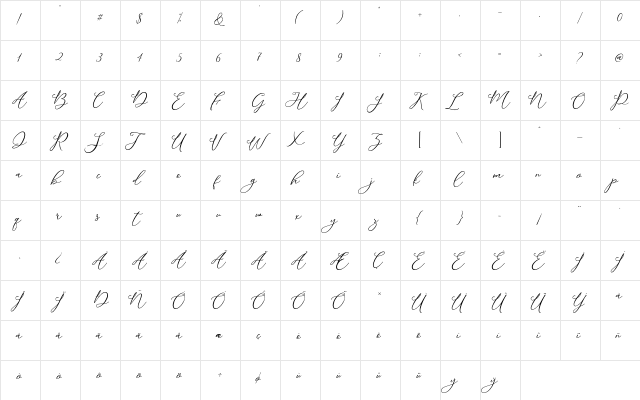
Modennta Regular
| Foundry | Modennta seena |
Design Context for Modennta Typeface
Modennta is a composed and adaptable typeface that performs quietly and consistently across a wide range of design contexts.